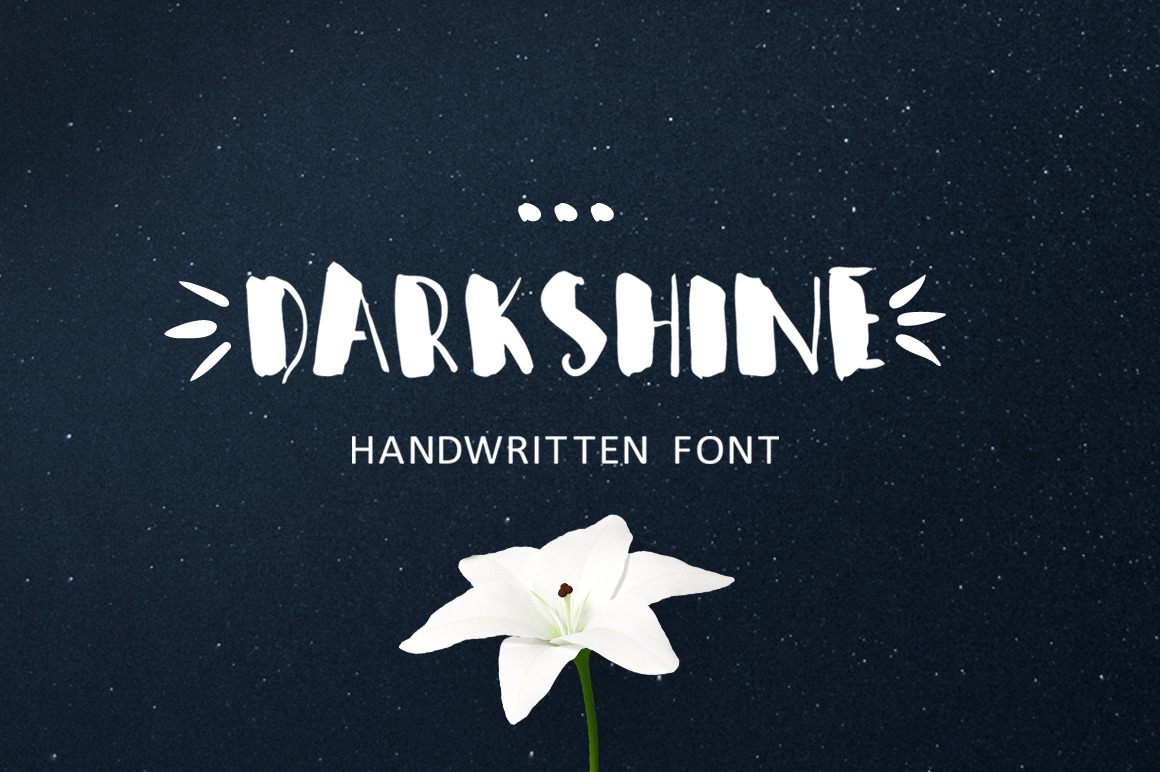
Darkshine Brush Font. Script.
Hello everybody! I present to you my new font DARKSHINE! It's hand lettered script font which combines dramatic sweeping lines and a thin brush stroke. This is a great decoration element for your belongings, interior, pillows, shirts, posters, prints, weddings, apparel, packaging, invites, etc. Also you can place these phrases to your photos.